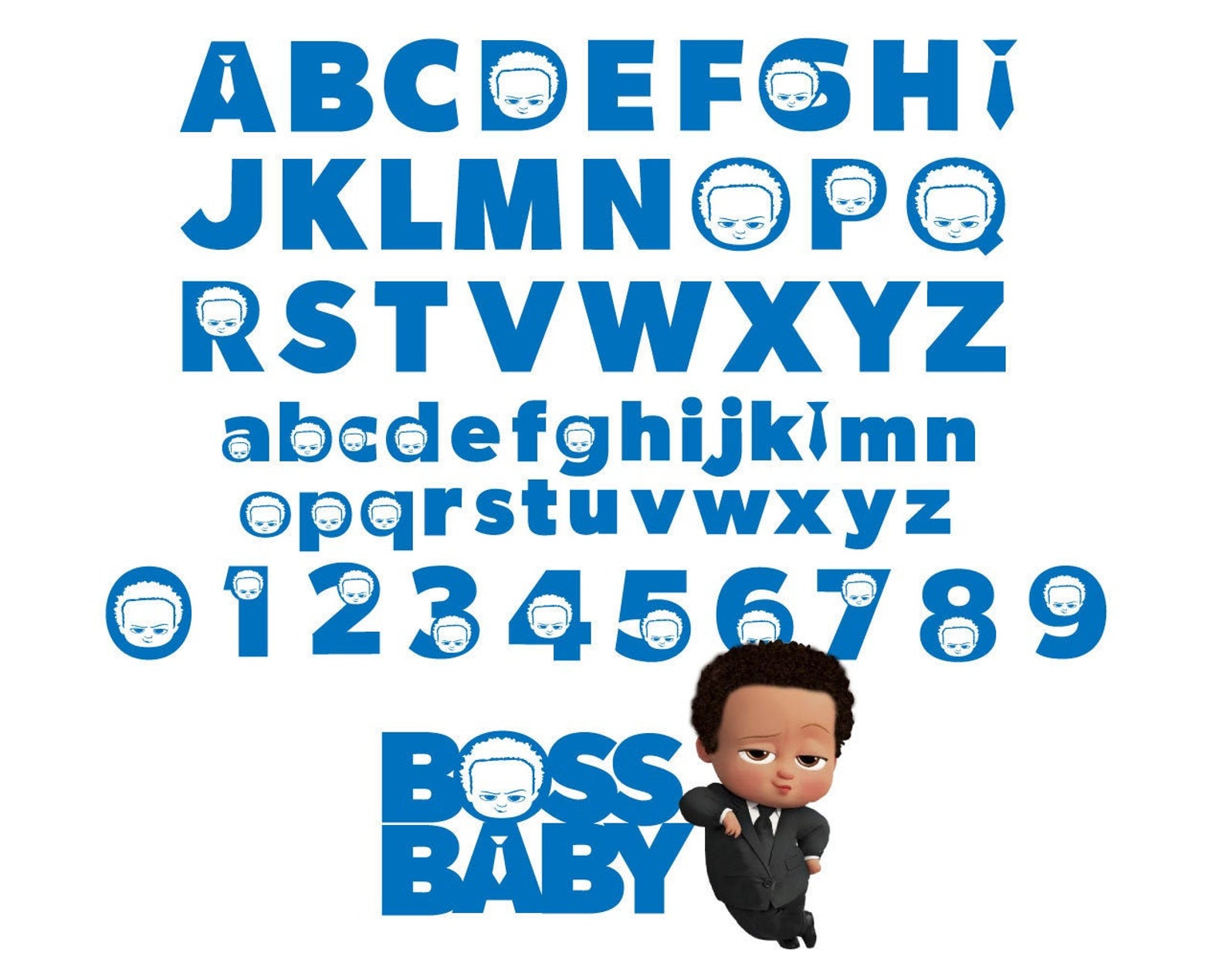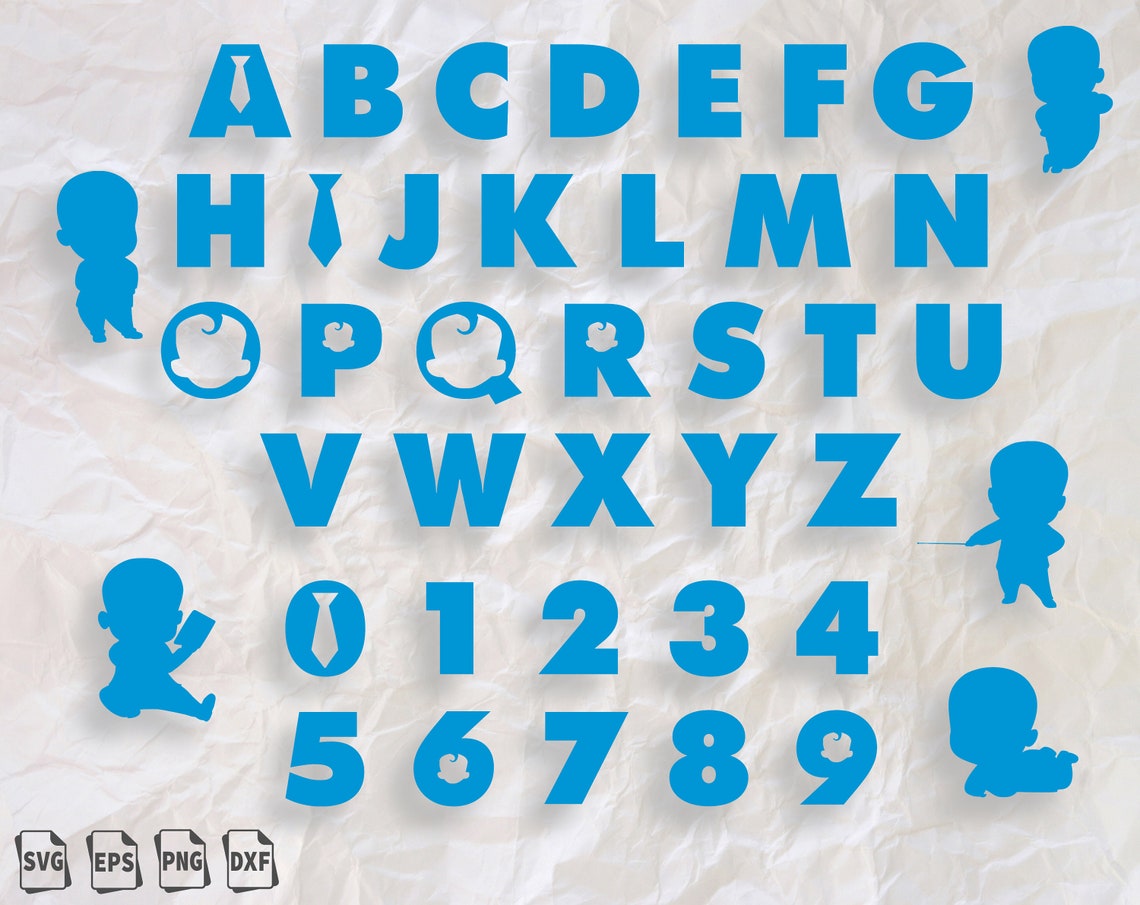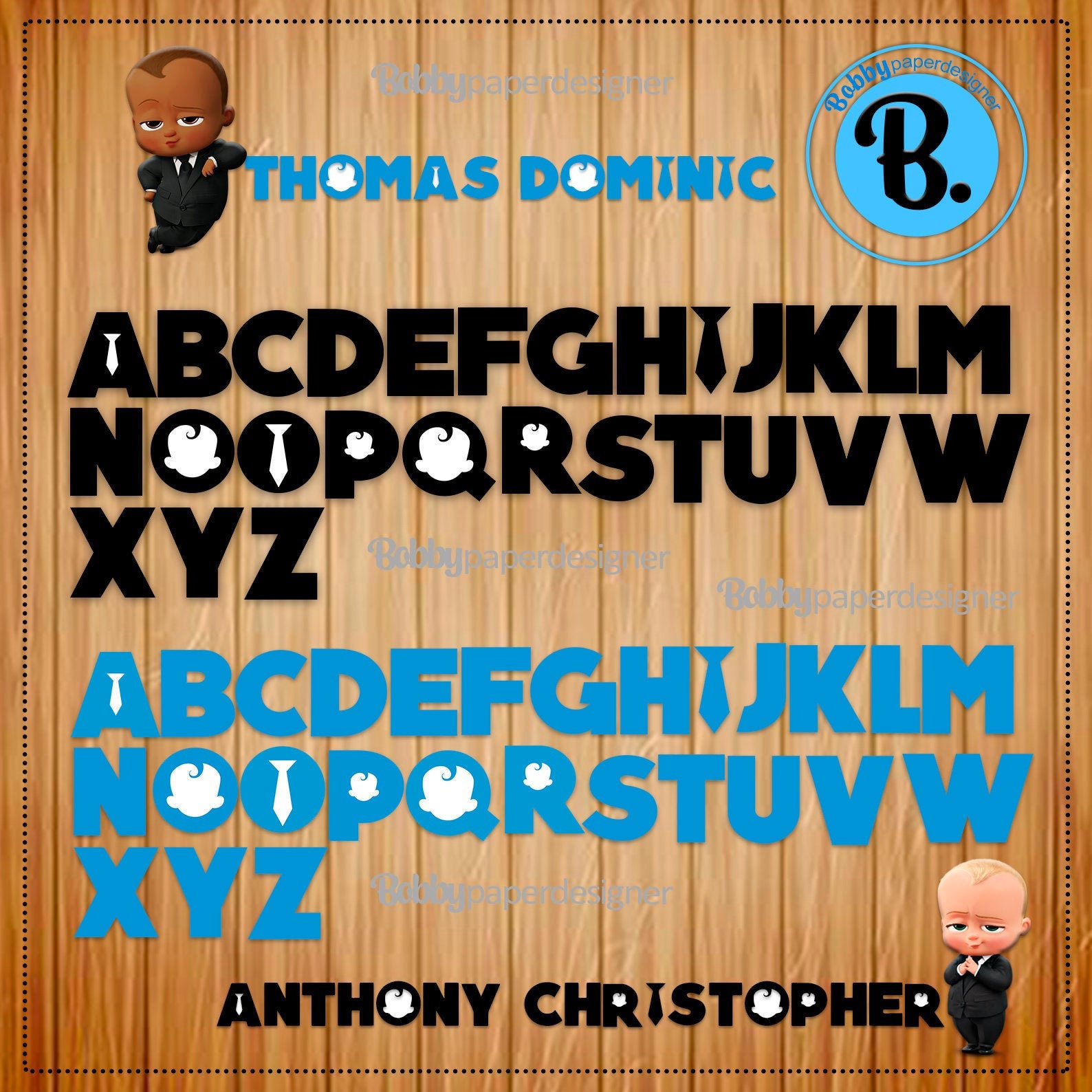
Boss Baby Font
Boss Baby Font - Web unlimited free fonts download the font that is used in the boss baby movie logo is a typeface by the same name called boss baby. Web boss baby suggested by leyartpersonalizados proxima nova suggested by deleted user 972301 futura suggested by avyukt #2. This is a cool and elegant movie font. Web boss baby is a 2017 animated film about a talking baby in a suit on a mission to stop a plot by puppy co. Web any manufacturer who needs to goal feminine audience can use the boss baby font.
This is a cool and elegant movie font. Web boss baby is a 2017 animated film about a talking baby in a suit on a mission to stop a plot by puppy co. Web any manufacturer who needs to goal feminine audience can use the boss baby font. Web boss baby suggested by leyartpersonalizados proxima nova suggested by deleted user 972301 futura suggested by avyukt #2. Web unlimited free fonts download the font that is used in the boss baby movie logo is a typeface by the same name called boss baby.
This is a cool and elegant movie font. Web unlimited free fonts download the font that is used in the boss baby movie logo is a typeface by the same name called boss baby. Web boss baby is a 2017 animated film about a talking baby in a suit on a mission to stop a plot by puppy co. Web boss baby suggested by leyartpersonalizados proxima nova suggested by deleted user 972301 futura suggested by avyukt #2. Web any manufacturer who needs to goal feminine audience can use the boss baby font.
This is a cool and elegant movie font. Web boss baby is a 2017 animated film about a talking baby in a suit on a mission to stop a plot by puppy co. Web boss baby suggested by leyartpersonalizados proxima nova suggested by deleted user 972301 futura suggested by avyukt #2. Web any manufacturer who needs to goal feminine audience.
Web boss baby is a 2017 animated film about a talking baby in a suit on a mission to stop a plot by puppy co. Web unlimited free fonts download the font that is used in the boss baby movie logo is a typeface by the same name called boss baby. This is a cool and elegant movie font. Web.
Web boss baby suggested by leyartpersonalizados proxima nova suggested by deleted user 972301 futura suggested by avyukt #2. Web boss baby is a 2017 animated film about a talking baby in a suit on a mission to stop a plot by puppy co. This is a cool and elegant movie font. Web any manufacturer who needs to goal feminine audience.
This is a cool and elegant movie font. Web boss baby suggested by leyartpersonalizados proxima nova suggested by deleted user 972301 futura suggested by avyukt #2. Web boss baby is a 2017 animated film about a talking baby in a suit on a mission to stop a plot by puppy co. Web unlimited free fonts download the font that is.
Web boss baby is a 2017 animated film about a talking baby in a suit on a mission to stop a plot by puppy co. Web any manufacturer who needs to goal feminine audience can use the boss baby font. This is a cool and elegant movie font. Web boss baby suggested by leyartpersonalizados proxima nova suggested by deleted user.
Web boss baby is a 2017 animated film about a talking baby in a suit on a mission to stop a plot by puppy co. Web unlimited free fonts download the font that is used in the boss baby movie logo is a typeface by the same name called boss baby. Web any manufacturer who needs to goal feminine audience.
Web unlimited free fonts download the font that is used in the boss baby movie logo is a typeface by the same name called boss baby. Web any manufacturer who needs to goal feminine audience can use the boss baby font. This is a cool and elegant movie font. Web boss baby suggested by leyartpersonalizados proxima nova suggested by deleted.
Web unlimited free fonts download the font that is used in the boss baby movie logo is a typeface by the same name called boss baby. Web boss baby suggested by leyartpersonalizados proxima nova suggested by deleted user 972301 futura suggested by avyukt #2. Web any manufacturer who needs to goal feminine audience can use the boss baby font. This.
Web unlimited free fonts download the font that is used in the boss baby movie logo is a typeface by the same name called boss baby. Web boss baby is a 2017 animated film about a talking baby in a suit on a mission to stop a plot by puppy co. Web boss baby suggested by leyartpersonalizados proxima nova suggested.
Web Any Manufacturer Who Needs To Goal Feminine Audience Can Use The Boss Baby Font.
This is a cool and elegant movie font. Web boss baby is a 2017 animated film about a talking baby in a suit on a mission to stop a plot by puppy co. Web boss baby suggested by leyartpersonalizados proxima nova suggested by deleted user 972301 futura suggested by avyukt #2. Web unlimited free fonts download the font that is used in the boss baby movie logo is a typeface by the same name called boss baby.